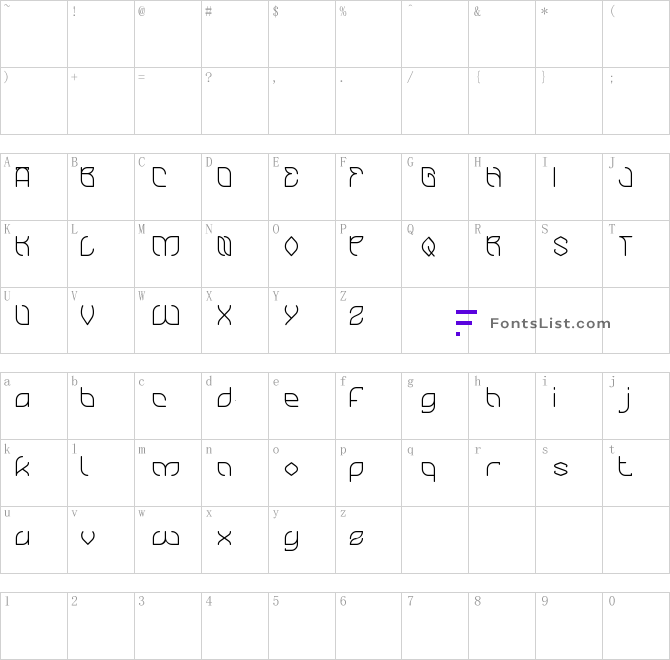
- Font Name:BAMBOO chopsticks
BAMBOO-chopsticks.ttf is a very beautiful artistic font, BAMBOO-chopsticks.ttf is widely used in the design and printing of various books and pictures,BAMBOO-chopsticks.ttf has a strong visual impact,BAMBOO-chopsticks.ttf is a commonly used font in newspapers, magazines and books, and is used in posters, e-commerce Poster design, store design, logo design, font design and other fields.BAMBOO-chopsticks.